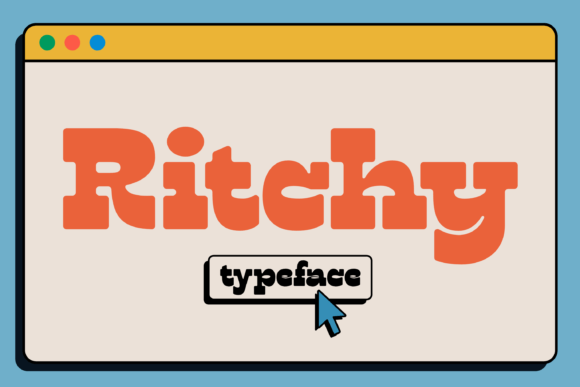
Introducing Ritchy Font, the ultimate choice for those seeking the best fonts for old style designs. Created by the talented Toko Laris Djaja, this display font is bursting with personality and brings a delightful retro aesthetic to any project. Say goodbye to dull and generic typography, and embrace the playful and nostalgic vibes of Ritchy.
With its Pop, western, and retro influences, Ritchy Font is a true standout. Its fun and captivating nature instantly transports you back to the golden age of bold typography. Let your creativity flow and watch as this font breathes life into your designs.
Ritchy Font is your go-to choice for a wide range of projects. From book covers to posters, packaging to merchandise, this font is versatile and adaptable. It effortlessly enhances the visual appeal of logotypes, font logos, stickers, and so much more. Wherever you use it, Ritchy adds that special touch of retro charm.
Looking to bring back the spirit of vintage advertisements? Want to create a design that oozes with nostalgia? Look no further than Ritchy Font. Its eye-catching curves and distinctive letterforms will captivate your audience and make your message unforgettable. Stand out from the crowd and leave a lasting impression with this one-of-a-kind typeface.
But it doesn't stop there. Ritchy Font helps you tap into the emotions of your audience. Its unique style evokes a sense of joy, excitement, and the carefree spirit of the past. Let your designs transport your users to a simpler time, where fun and adventure awaited around every corner.